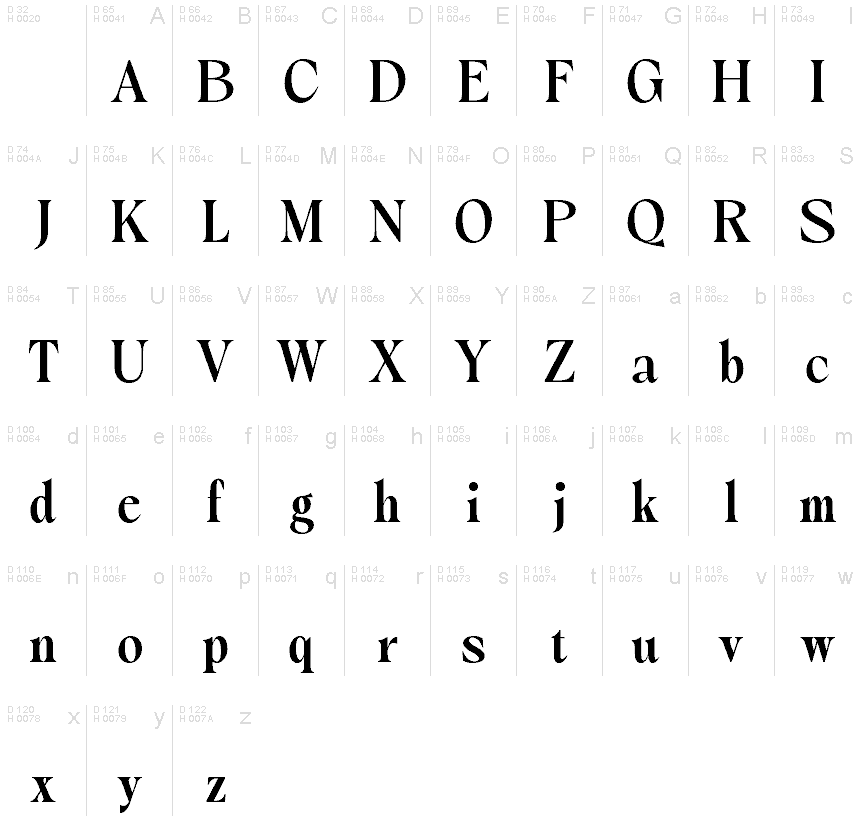
Maverly Demo Regular
Maverly font by Craft Supply Co is an elegant serif typeface with refined curves and timeless appeal. Its sophisticated design carries traditional influences, lending a professional look to any project. The stylish typeface is available in four types: thin, regular, bold, and tapered; each different yet equally beautiful.
Maverly is perfect for headlines, body text in magazines or books, applications on business cards and invitations of all types from weddings to graduation parties. It could also be used on branding projects with other promotional materials like posters where excellent readability counts most!